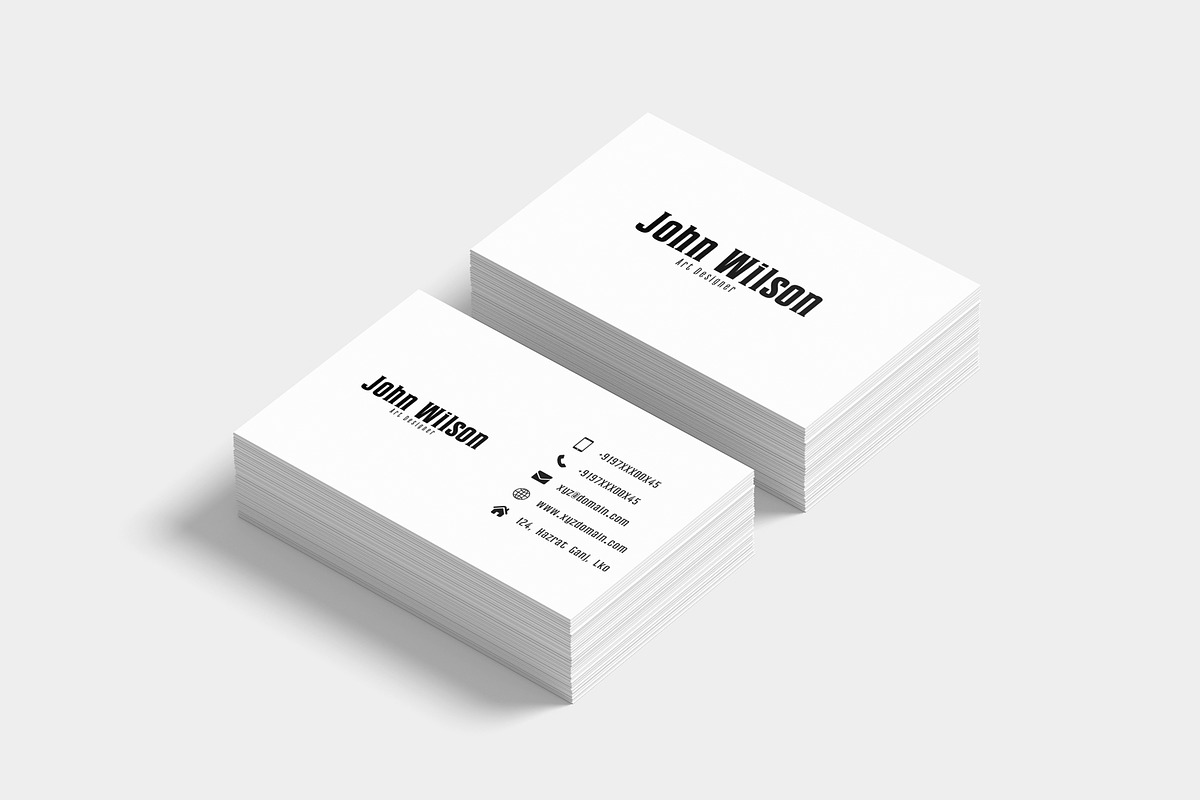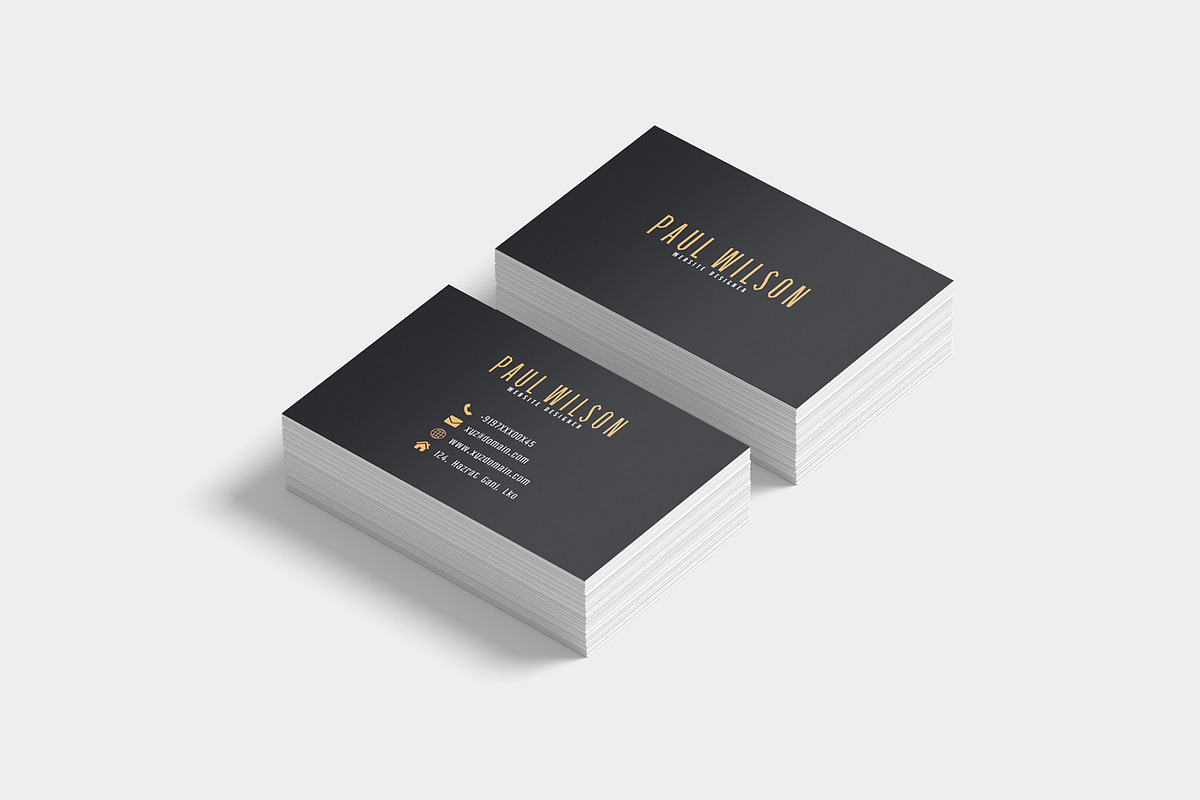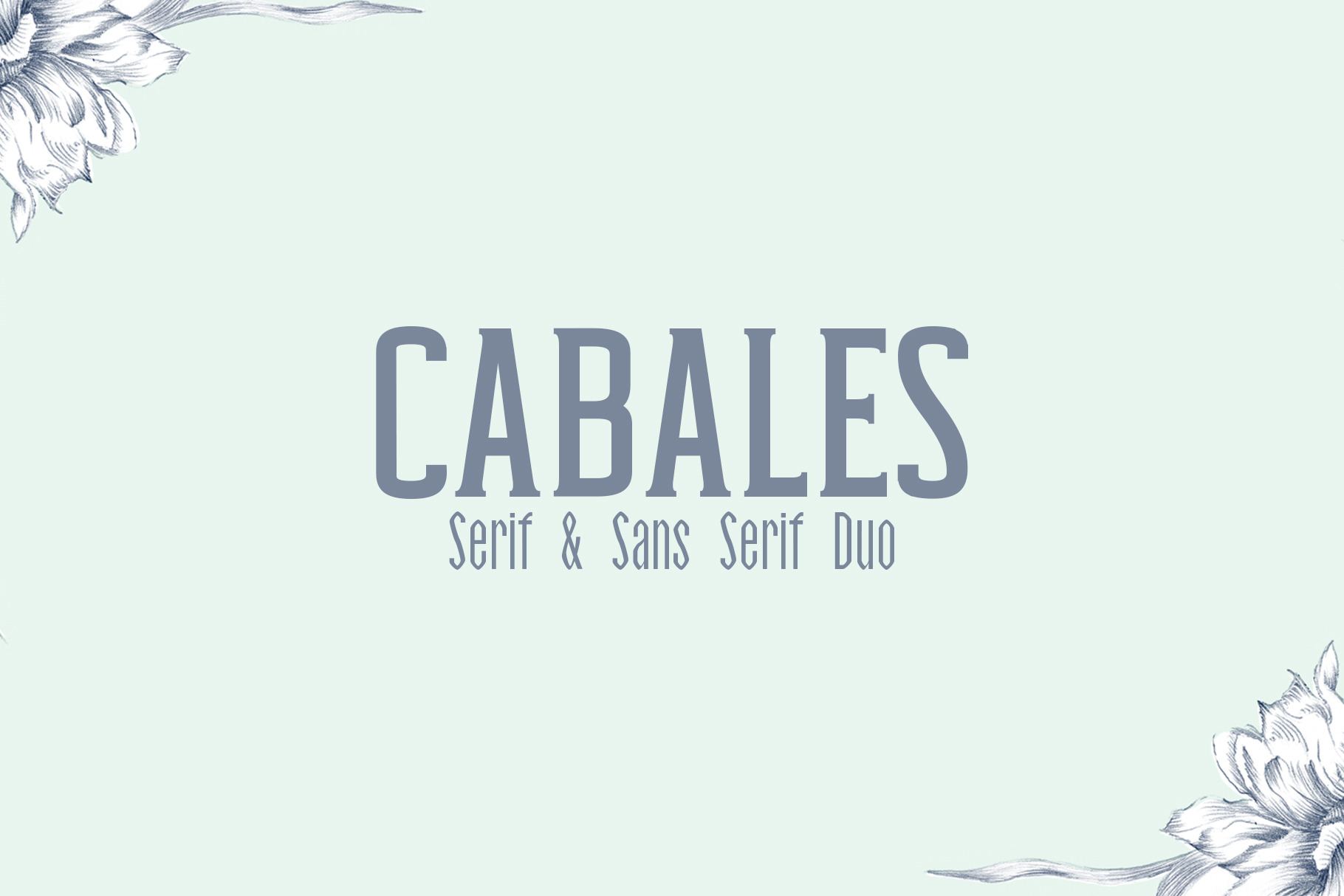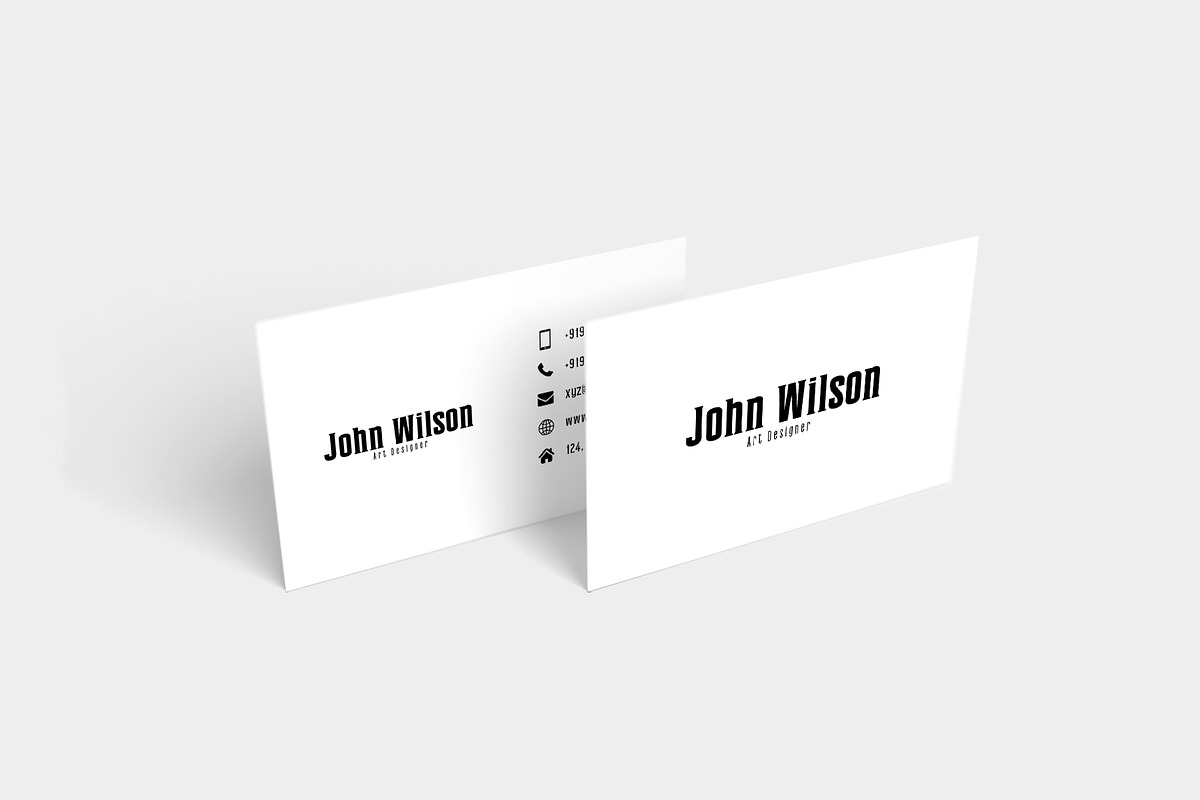
Cabales Duo 8 Font | Bonus Freebie
Cabales Duo Font is a dual sans serif and serif font containing uppercase and lowercase characters, numerals and a bunch of punctuation. These fonts look amazing in all caps with a wide-set spacing if you want to try a classy look, or beautiful on its own in capital and lowercase letters for something completely timeless. Ideal for designing quotes, branding & logo projects, merchandise, social media posts, displays, headers, invitations, save the dates, weddings, titles, product packaging, etc.
Included With Cabales:
- Font Weight: Regular, Light, Outline and Bold
- Uppercase Multilingual Letters
- Lowercase Multilingual Letters